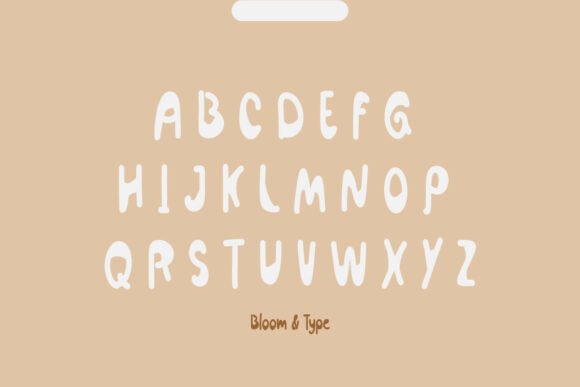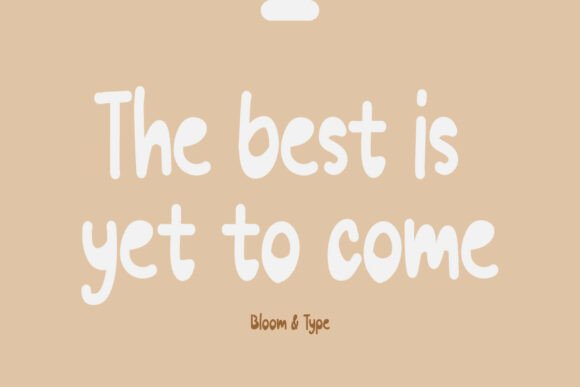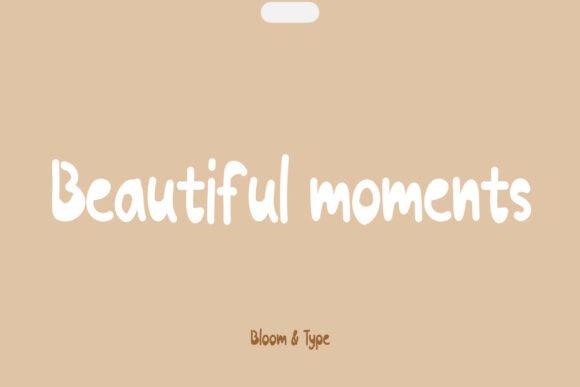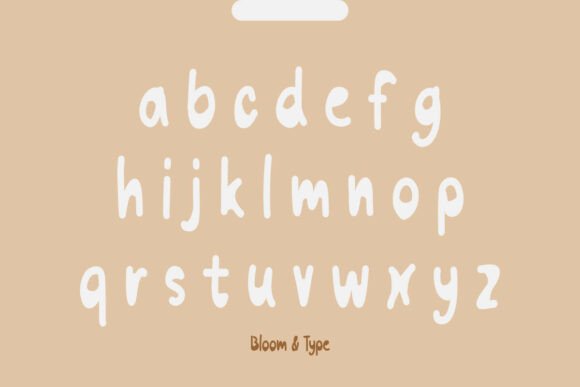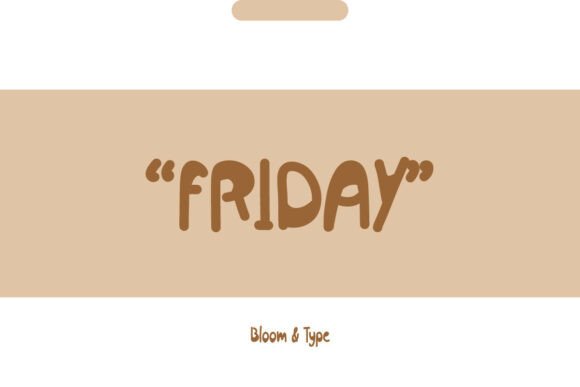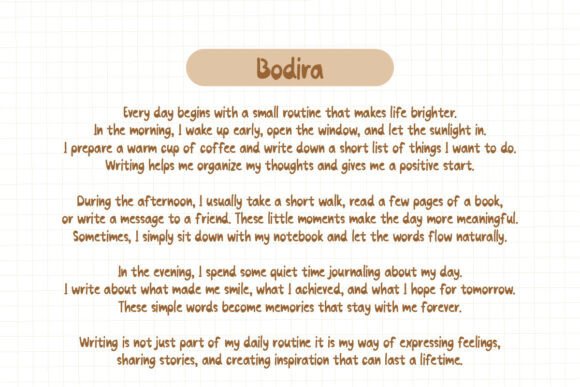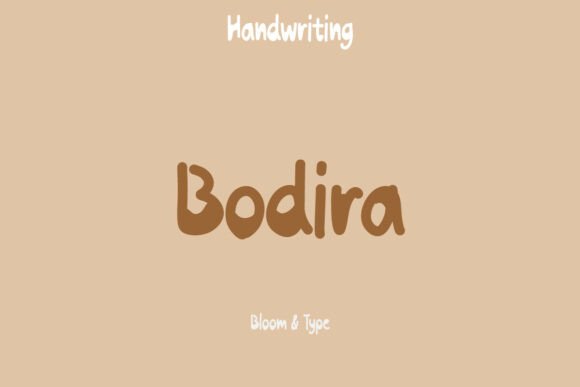
Introducing Bodira Font: The Ultimate Cute and Playful Handwritten Font
Are you looking for a font that can add a touch of warmth and friendliness to your designs? Look no further than Bodira Font! This adorable rounded handwritten font is designed to bring a soft, playful, and engaging personality to your projects. With its bubbly letterforms and smooth curves, Bodira delivers a natural and fun look that’s perfect for a wide range of design applications.
The Characteristics of Bodira Font
Bodira Font boasts a range of features that make it the perfect choice for designers and crafters. Some of its key characteristics include:
• Uppercase & lowercase letters: Bodira includes a full set of uppercase and lowercase letters, making it easy to create professional-looking text.
• Numbers & punctuation: The font also includes a range of numbers and punctuation marks, giving you everything you need to create engaging text.
• Multilingual support: Bodira supports multiple languages, making it a great choice for designers working on international projects.
The Benefits of Using Bodira Font
So why choose Bodira Font for your next project? Here are just a few benefits of using this amazing font:
• Rounded & soft letterforms: Bodira’s rounded letterforms give it a soft and friendly feel that’s perfect for designs that need to feel approachable and welcoming.
• Cute and playful style: This font is perfect for designers who want to add a touch of whimsy and fun to their work.
• Easy to read: Despite its playful style, Bodira is incredibly easy to read, making it perfect for use in body text or headings.
• Clean handwritten feel: Bodira has a clean and natural handwritten feel that makes it perfect for designs that need to feel authentic and engaging.
Perfect for a Range of Design Applications
Bodira Font is incredibly versatile, making it perfect for a wide range of design applications. Some of the projects that Bodira is especially well-suited for include:
• Kids design: Bodira’s playful and fun style makes it perfect for designs aimed at kids, such as children’s books, educational materials, and kids’ websites.
• Social media posts: Add a touch of personality to your social media posts with Bodira’s cute and engaging font.
• Quotes & typography: Bodira is perfect for creating inspiring quotes, posters, and typographic designs that need to feel friendly and approachable.
• Sticker design: Create fun and engaging stickers with Bodira’s playful font.
• Planner & printables: Add a touch of whimsy to your planners, journals, and printables with Bodira’s cute and functional font.
How to Use Bodira Font in Your Designs
Using Bodira Font in your designs is easy! Here are a few tips to get you started:
• Pair Bodira with other fonts: Bodira looks great when paired with other fonts, such as bold sans-serifs or elegant scripts.
• Experiment with colors: Bodira looks great in a range of colors, from bright and bold to soft and pastel.
• Use Bodira for headings and body text: Bodira’s easy-to-read style makes it perfect for use in both headings and body text.
In conclusion, Bodira Font is a must-have for designers and crafters looking to add a touch of warmth and friendliness to their designs. With its cute and playful style, easy-to-read letterforms, and range of features, Bodira is perfect for a wide range of design applications. Whether you’re creating designs for kids, social media posts, or printables, Bodira is the perfect choice. So why wait? Download Bodira Font today and start creating engaging and fun designs!